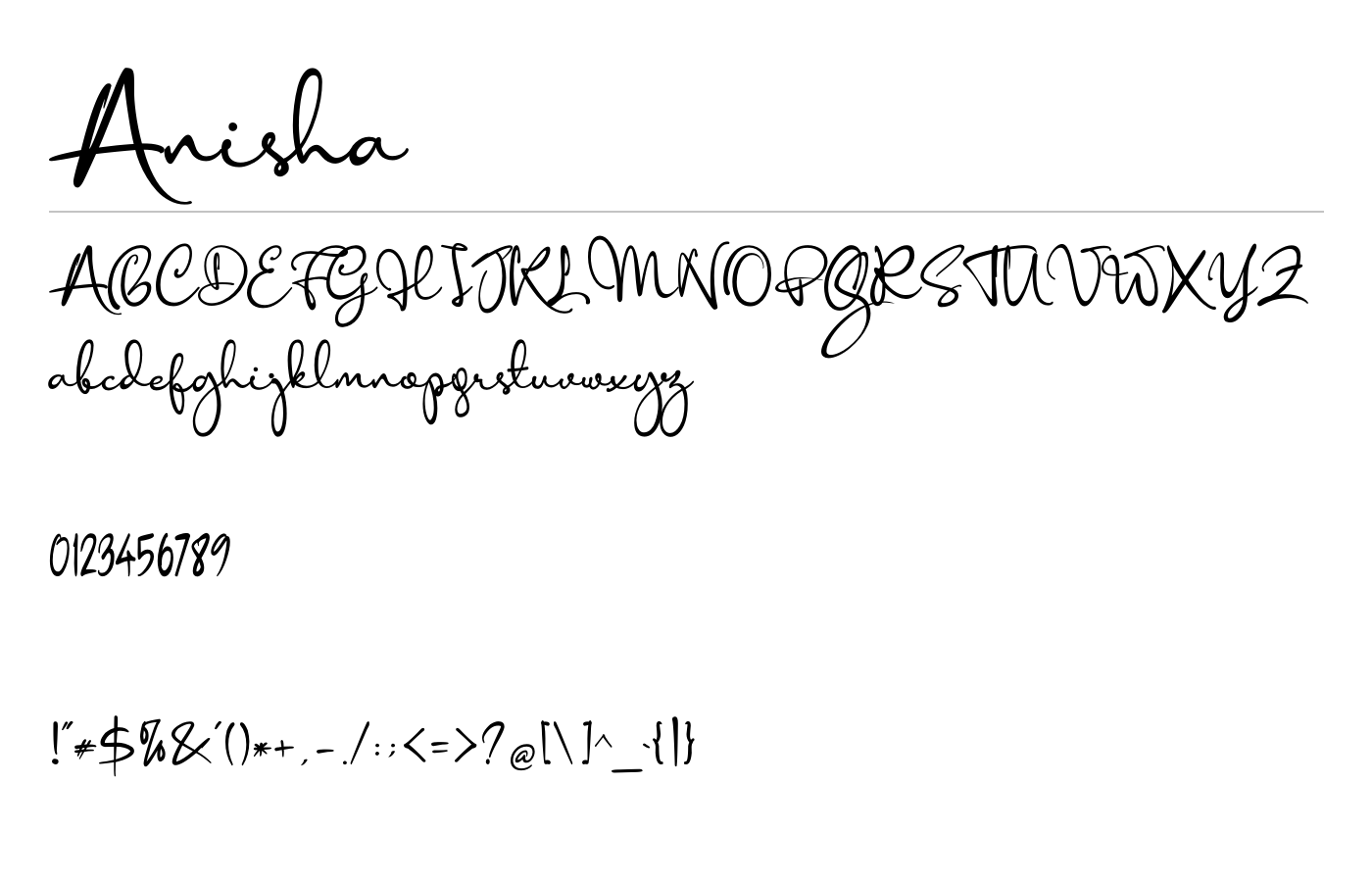
Anisha Font is a playful and elegant handwritten script with a lively, casual flow and thin strokes that give it a light, airy feel. Its distinct letterforms and high x-height make it ideal for adding a personal, creative touch to branding, invitations, logos, and social media graphics where a friendly and approachable style is desired. This font works best in display settings to convey warmth and artistic flair.
Anisha Font
About Anisha Font
| Font family | Anisha Font |
| Designer | Muhammad Ridha Agusni |